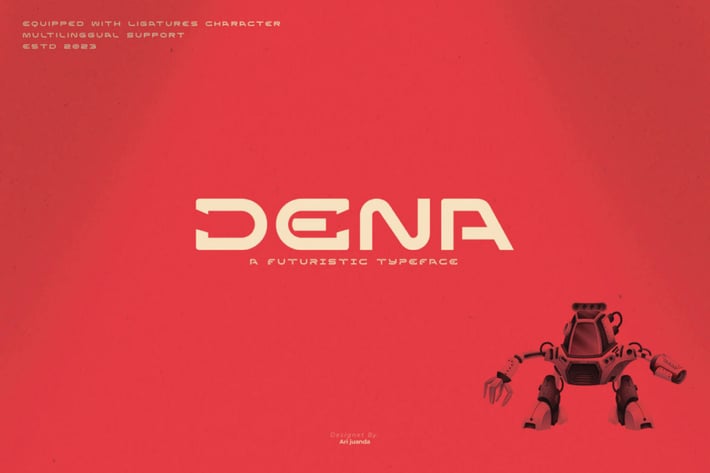
Dena A Futuristic Typeface
Introducing Dena Font, a futuristic typography that melds together future aesthetics and modern design. Designed for the cutting-edge designer, Dena Font is more than simply a font style—it's a design language, a symbol of sophisticated beauty inspired by cyberculture, sci-fi movies, and innovative video games.
2. Ligatures character
3. Numbers and punctuation
4. Multilingual (Latin Western Europe)